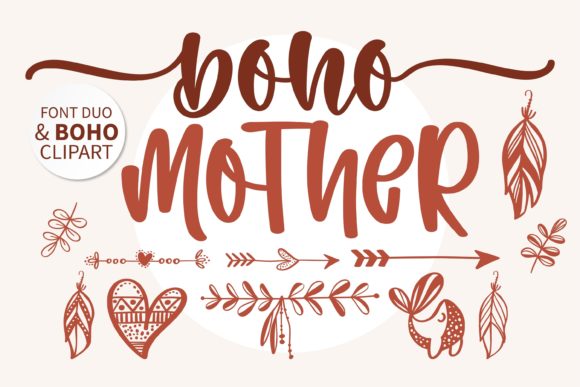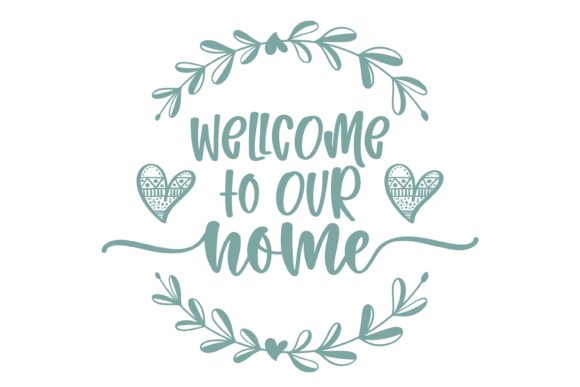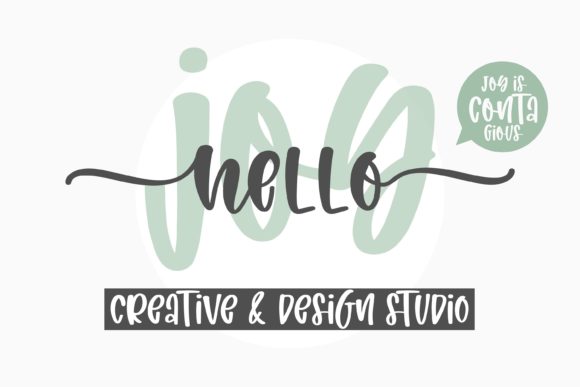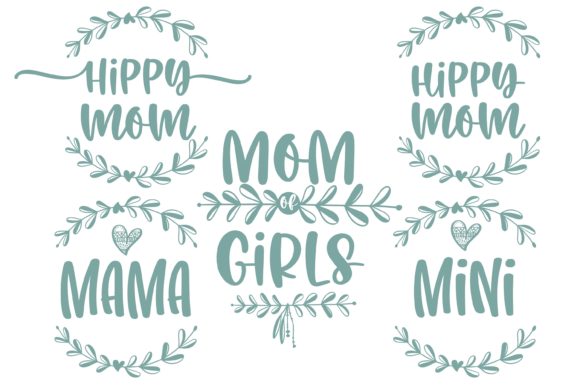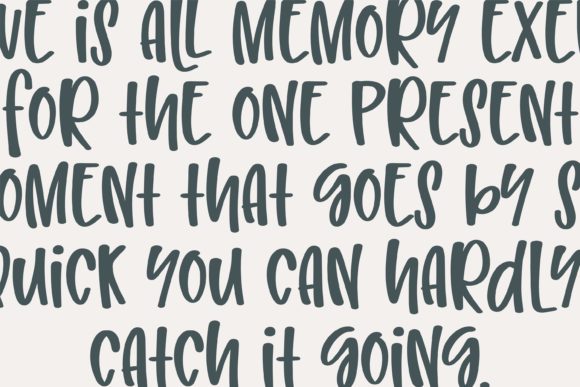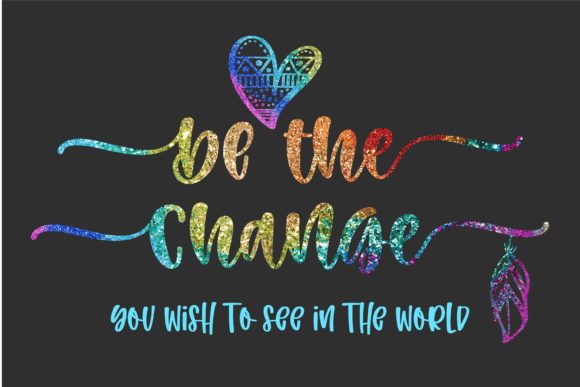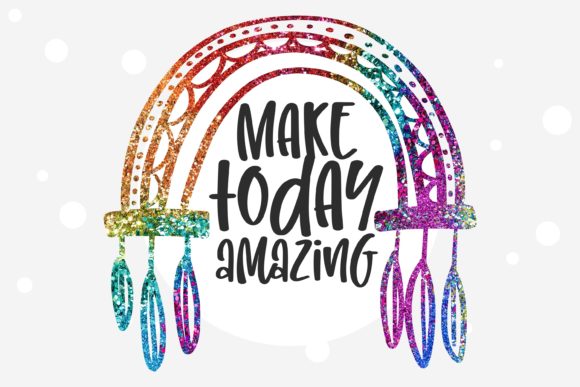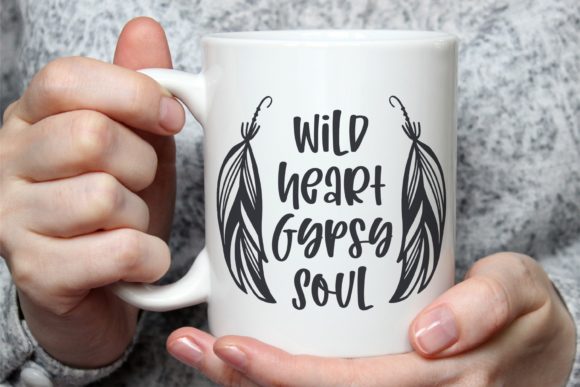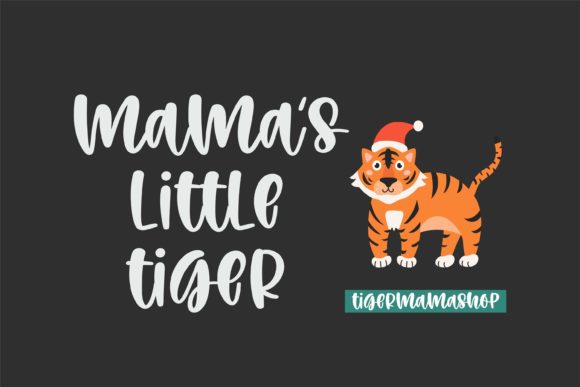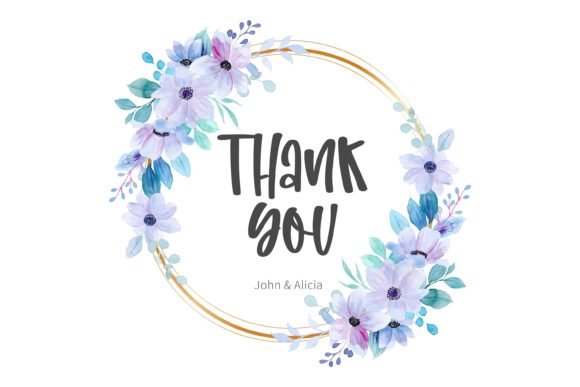
Boho Mother Font
About Boho Mother Font
Boho Mother is a captivating duo-styled handwritten font, balancing charm and delicacy seamlessly. With its PUA encoding, accessing a wide array of glyphs and swashes becomes effortlessly convenient. This versatile font possesses the unique ability to transform any creative concept into a standout masterpiece, adding a touch of individuality to your designs.
The duo-styled nature of Boho Mother contributes to its distinctive charm. The font strikes a perfect balance between elegance and a free-spirited, bohemian vibe, making it well-suited for a variety of design themes. Whether applied to branding, invitations, or any creative endeavor, Boho Mother adapts gracefully, enhancing the overall visual appeal of your projects.
The PUA encoding of Boho Mother enhances its user-friendly features, providing easy access to an extensive range of glyphs and swashes. This feature empowers designers to explore and customize their designs effortlessly, ensuring a personalized touch in every project.
Boho Mother’s enchanting qualities go beyond its aesthetic appeal. It possesses the transformative ability to elevate any creative idea, infusing it with a unique character that makes it stand out. The font’s versatility ensures that it can be seamlessly integrated into various design contexts, turning ordinary concepts into extraordinary visual experiences.
Incorporating Boho Mother into your design toolkit opens up a world of possibilities. Its duo-styled handwriting adds a distinctive touch, making your projects memorable and visually striking. Whether you are looking to evoke a sense of whimsy or sophistication, Boho Mother proves to be a font that can adapt to the creative vision you have in mind.
In conclusion, Boho Mother is more than just a font; it is a design companion that brings charm and delicacy to your creative endeavors. With its PUA encoding, this font provides an accessible canvas for designers to explore and customize, turning every project into a standout expression of individuality and style.